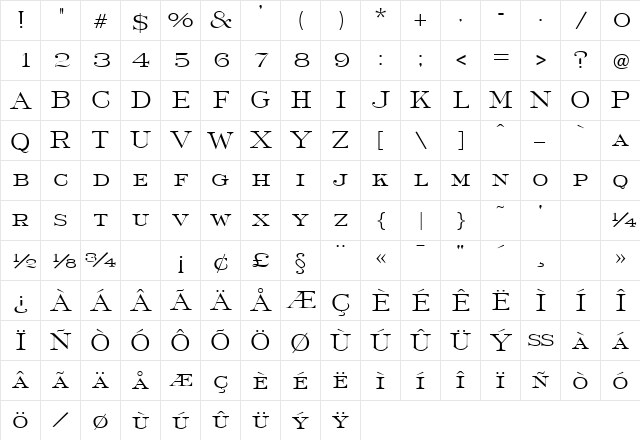
Finchley Regular
Design Context for Finchley Typeface
Finchley offers clean, dependable letterforms without strong stylistic allegiance, making it a practical choice for designers who need flexibility.